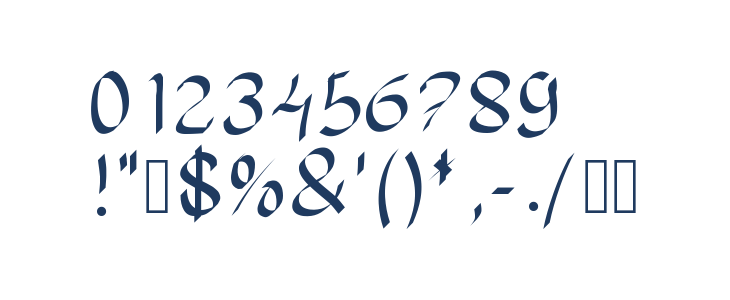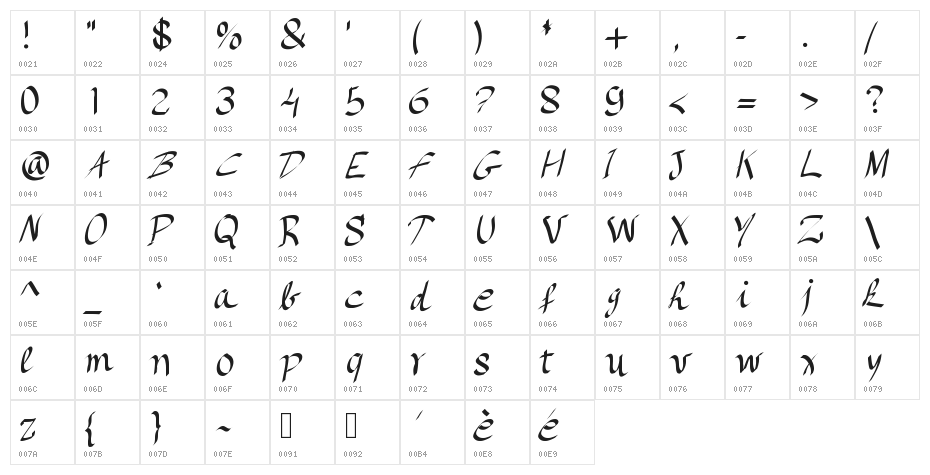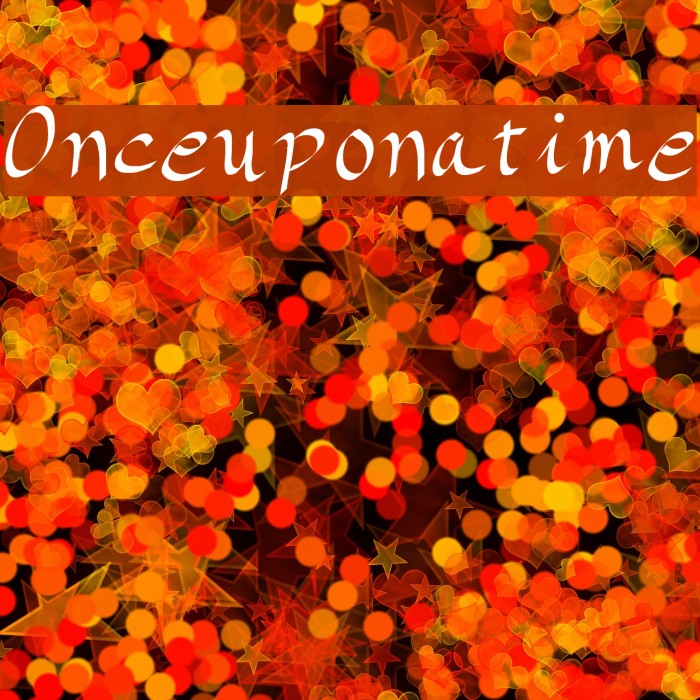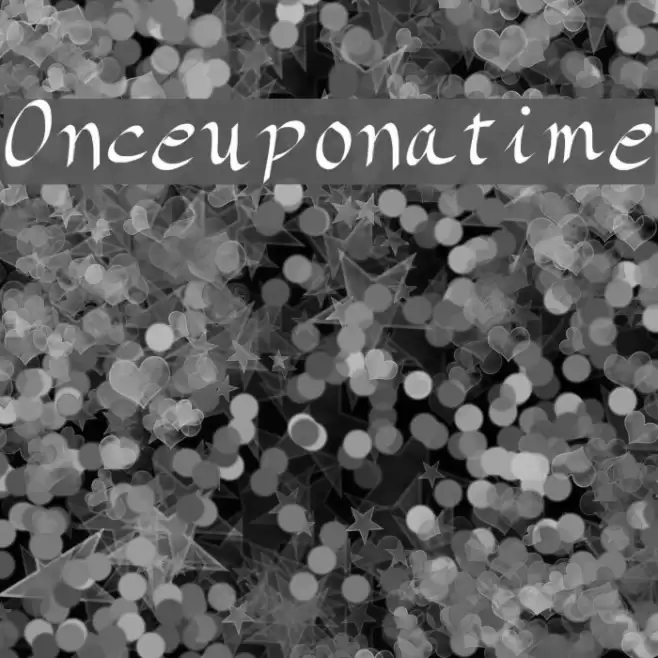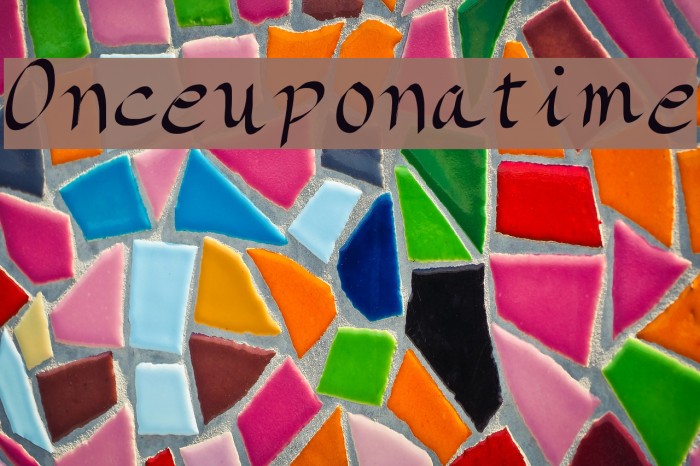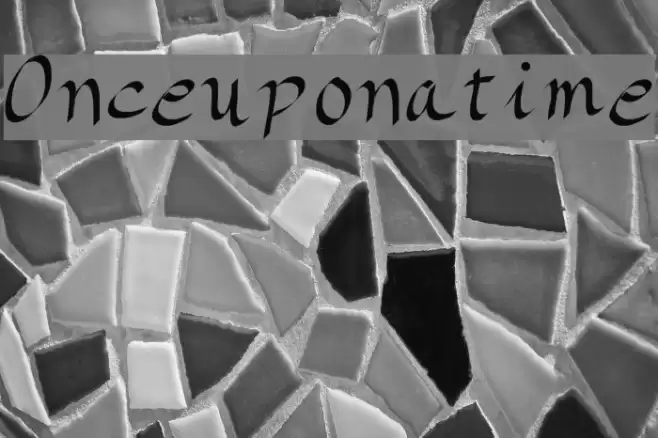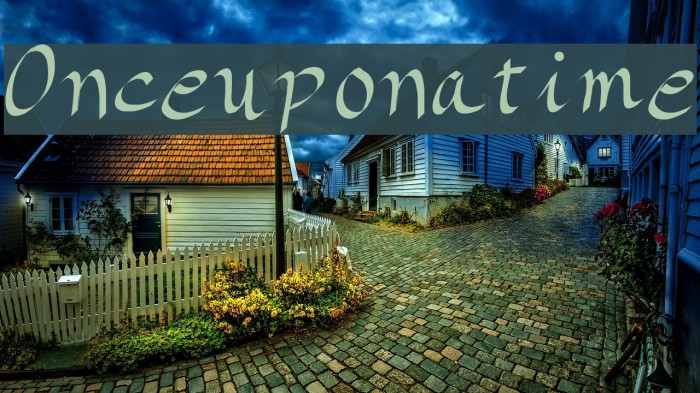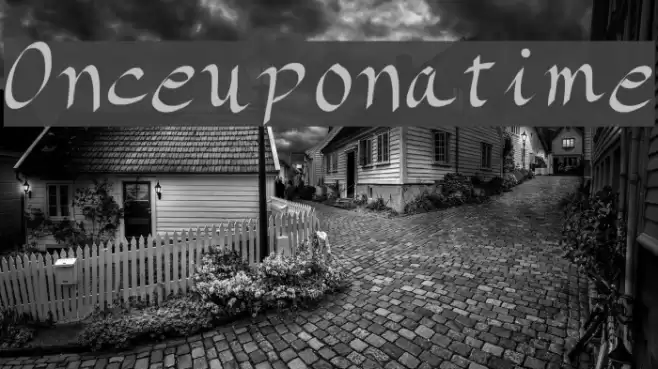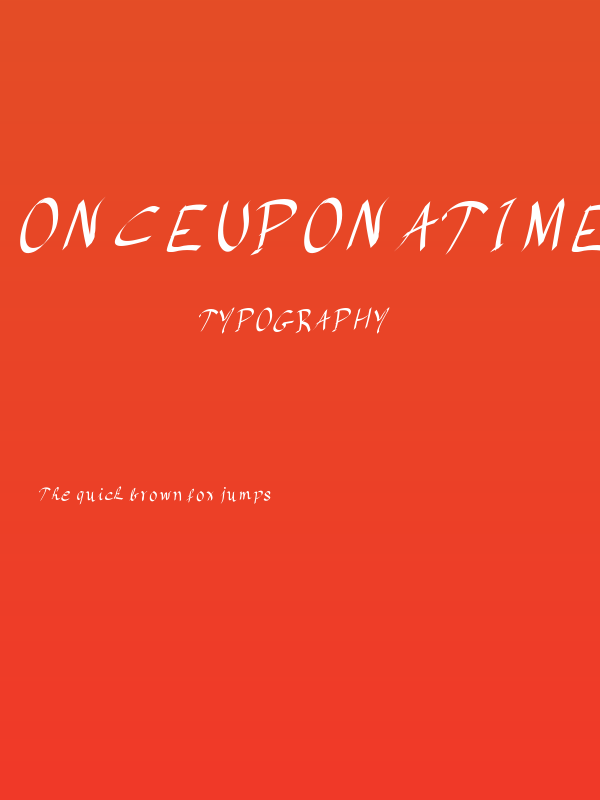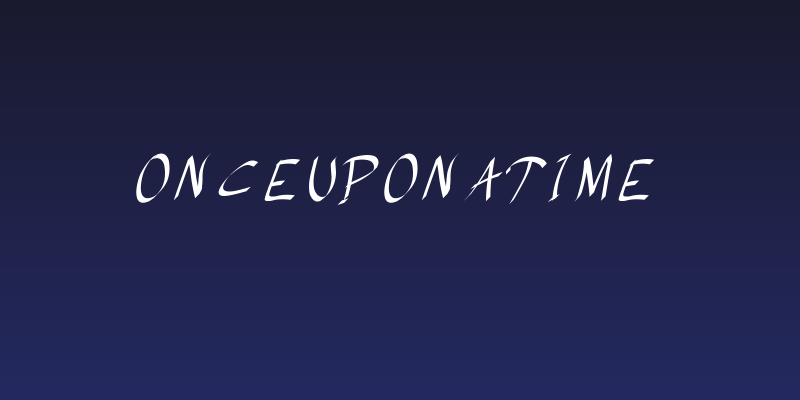
Onceuponatime Font
Onceuponatime Description
This font features a dynamic and fluid script style, characterized by its elegant and flowing letterforms. The strokes are smooth and slightly slanted, giving a sense of motion and grace. The uppercase letters are bold and prominent, while the lowercase letters maintain a consistent rhythm and balance. Numbers and special characters are crafted with the same attention to detail, ensuring a cohesive look across all glyphs. The font's overall appearance is both artistic and sophisticated, making it suitable for a variety of creative applications.
Overall StyleElegant
Use CaseLogos, Invitations, Decorative text
Proposed ProjectsIdeal for wedding invitations, greeting cards, branding, and editorial design.